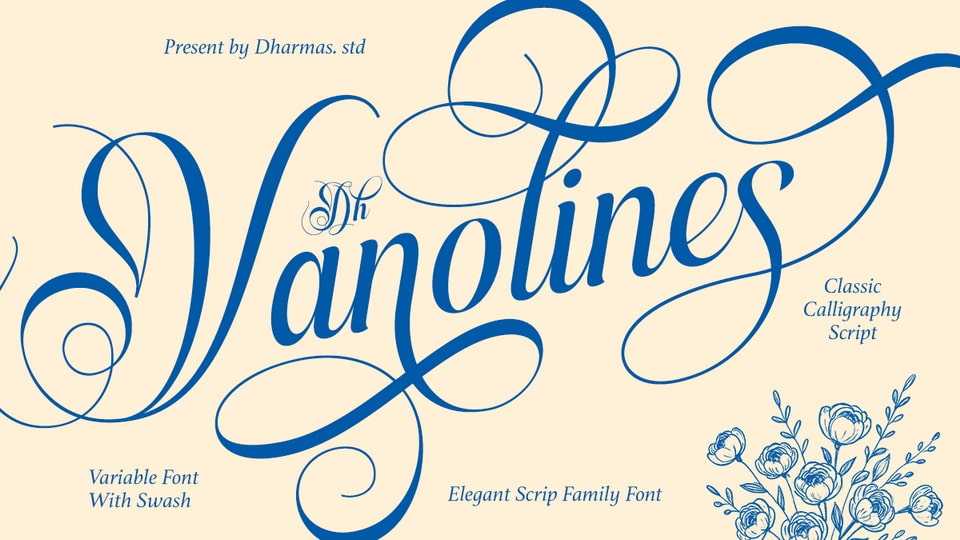
Download Dh Vanolines font, an exquisite calligraphy script typeface designed with timeless elegance and artistic flair. Its flowing curves and dramatic swashes bring a touch of romance and sophistication to every project.